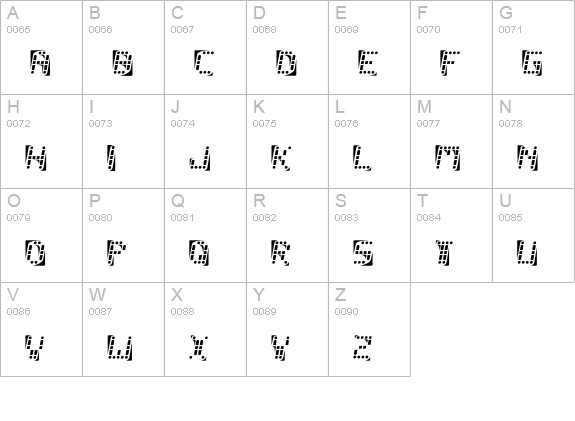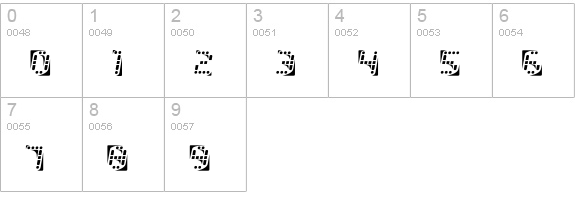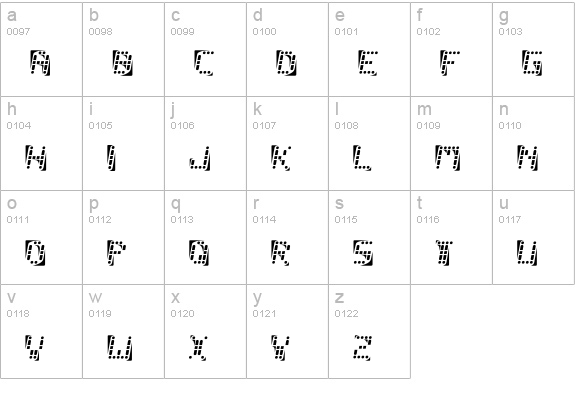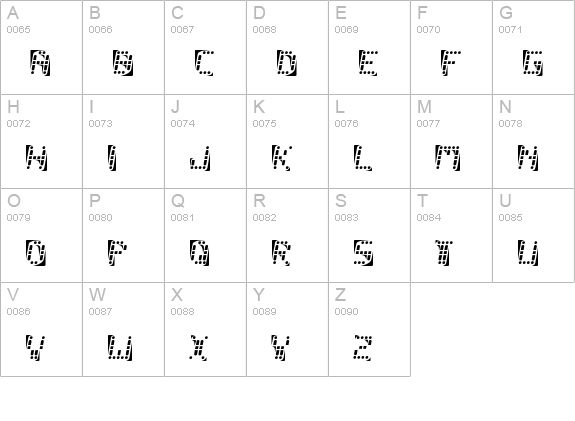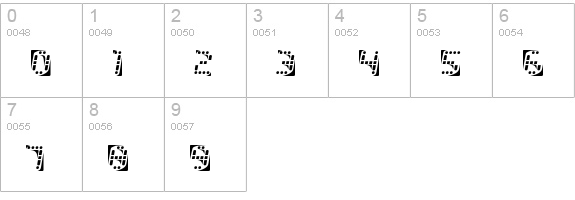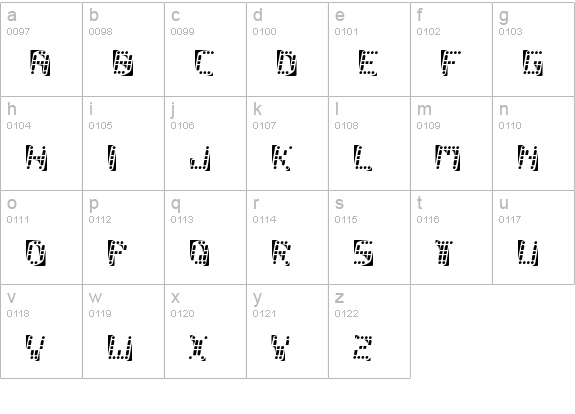
malfunction Font Details
Malfunction font is a captivating and intriguing typeface that exudes a sense of chaos and disruption. With its distorted and glitchy aesthetic, this font is perfect for adding a touch of edginess and modernity to any design project. Featuring irregular letterforms and broken lines, Malfunction font brings a unique and unconventional look to your typography. Each character seems to be caught in a state of fragmentation, creating a captivating visual experience that is sure to grab attention. This font is freely available to download at FontsMarket.com. Whether you are a designer looking to add a touch of rebelliousness to your creations or a content creator aiming to stand out from the crowd, Malfunction font offers unlimited possibilities. Its bold and energetic presence makes it ideal for headlines, posters, album covers, and more. Embrace the glitch and let your creativity run wild with Malfunction font. Download it for free at FontsMarket.com and unleash the power of disorder in your design projects.